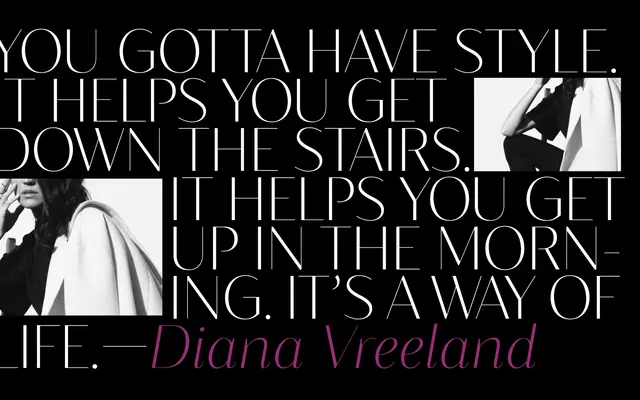
Blacker Sans Pro
Zetafonts · Francesco Canovaro, Andrea Tartarelli · 2019
A 60-style grotesque sans designed as a companion to Blacker Pro, split across three subfamilies with varying stroke contrast from monolinear to high-contrast display.
Built as a serif-less counterpart to the Blacker family, this family retains the dark, elegant character of its predecessor whilst replacing wedge serifs with a monolinear grotesque structure. Three subfamilies — Classic, Text and Display — apply different degrees of contrast to the same skeleton, from readability-optimised Text to the high-contrast curves of Display. The full family spans 60 static styles plus six variable fonts, with over 1,600 characters per style covering 220-plus languages across Latin, Cyrillic and Greek.
Described by the foundry as monolinear and grotesque-inspired, with varying contrast levels across three subfamilies; the Display subfamily introduces high-contrast stroke variation atypical of pure grotesques but the overall skeleton and approach remains within that tradition.